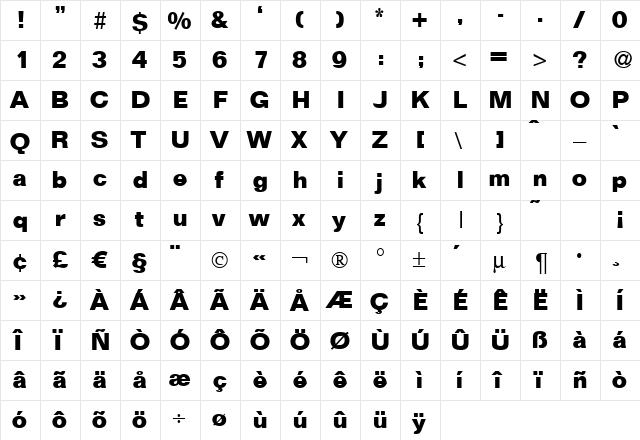
Focus Bold Font Preview
Focus Bold
Design Context for Focus Typeface
Focus is a composed and adaptable typeface that performs quietly and consistently across a wide range of design contexts. The heavy weight commands attention and anchors typographic hierarchies.